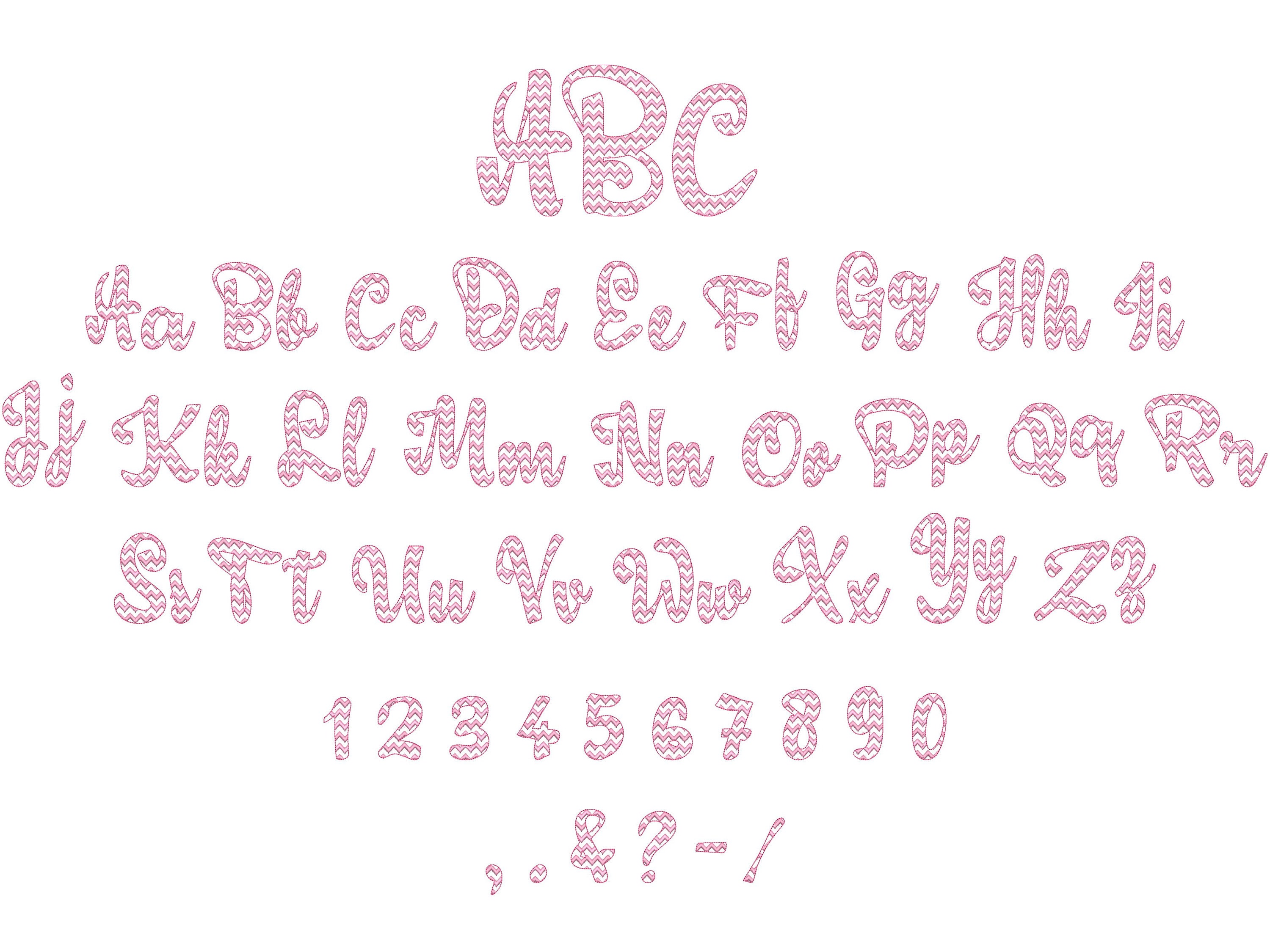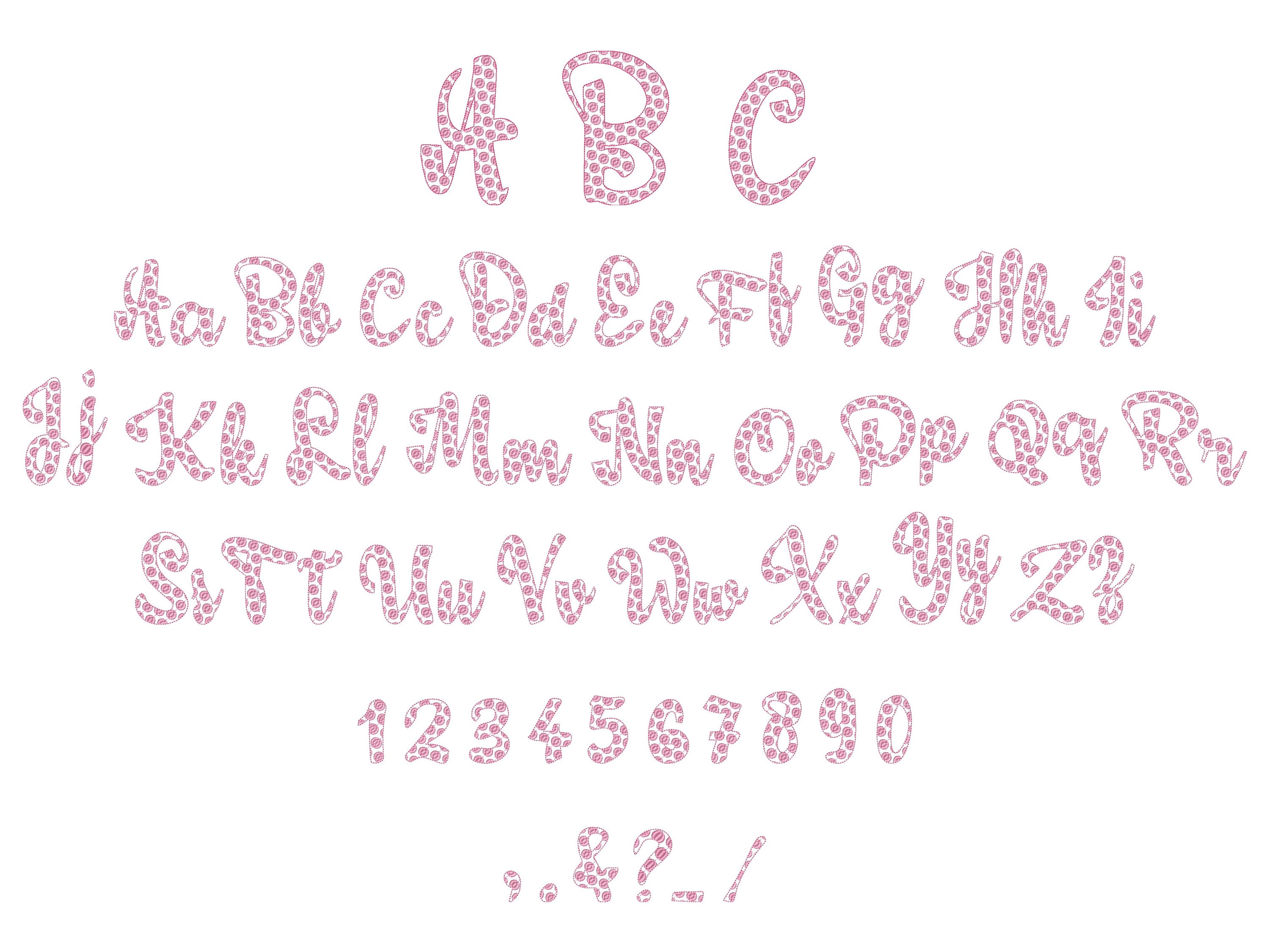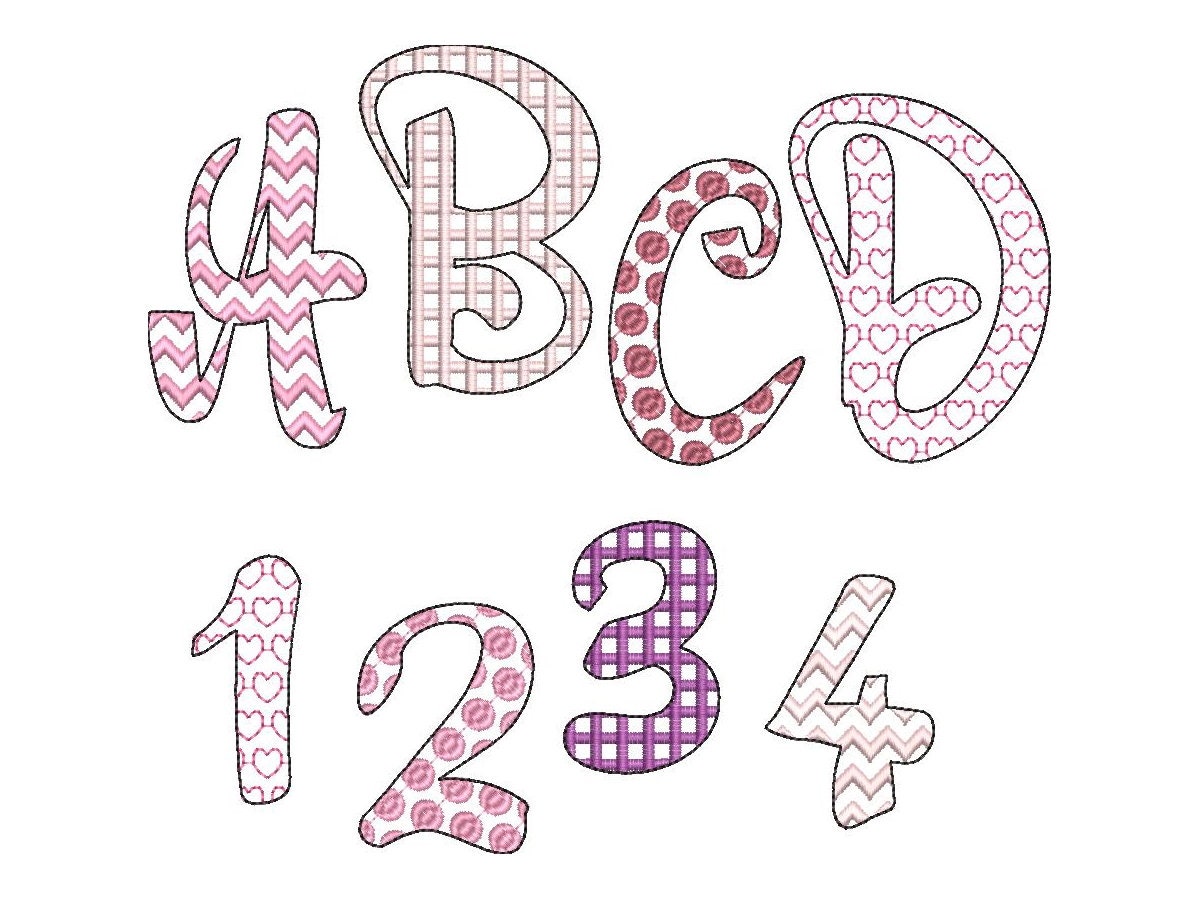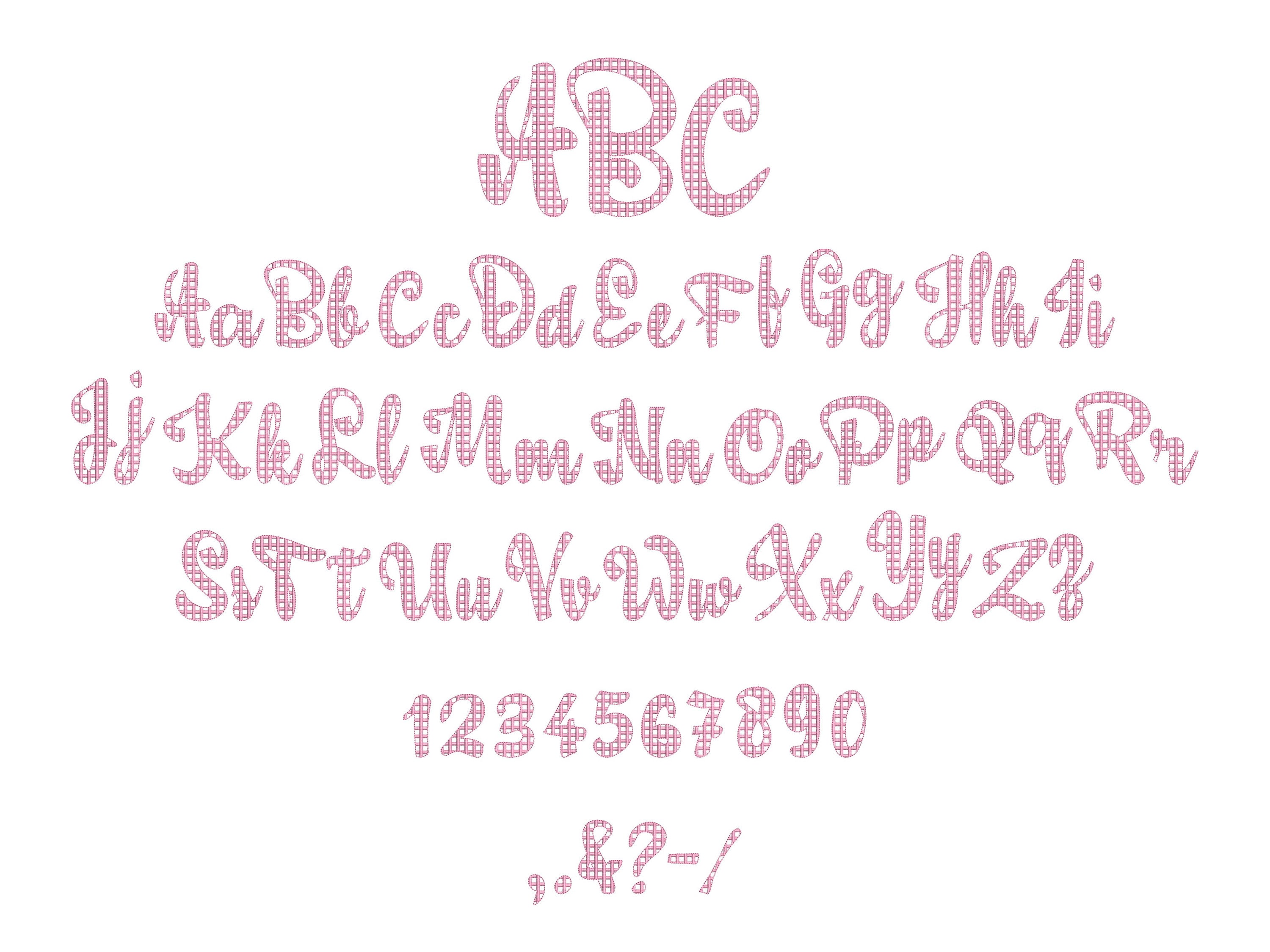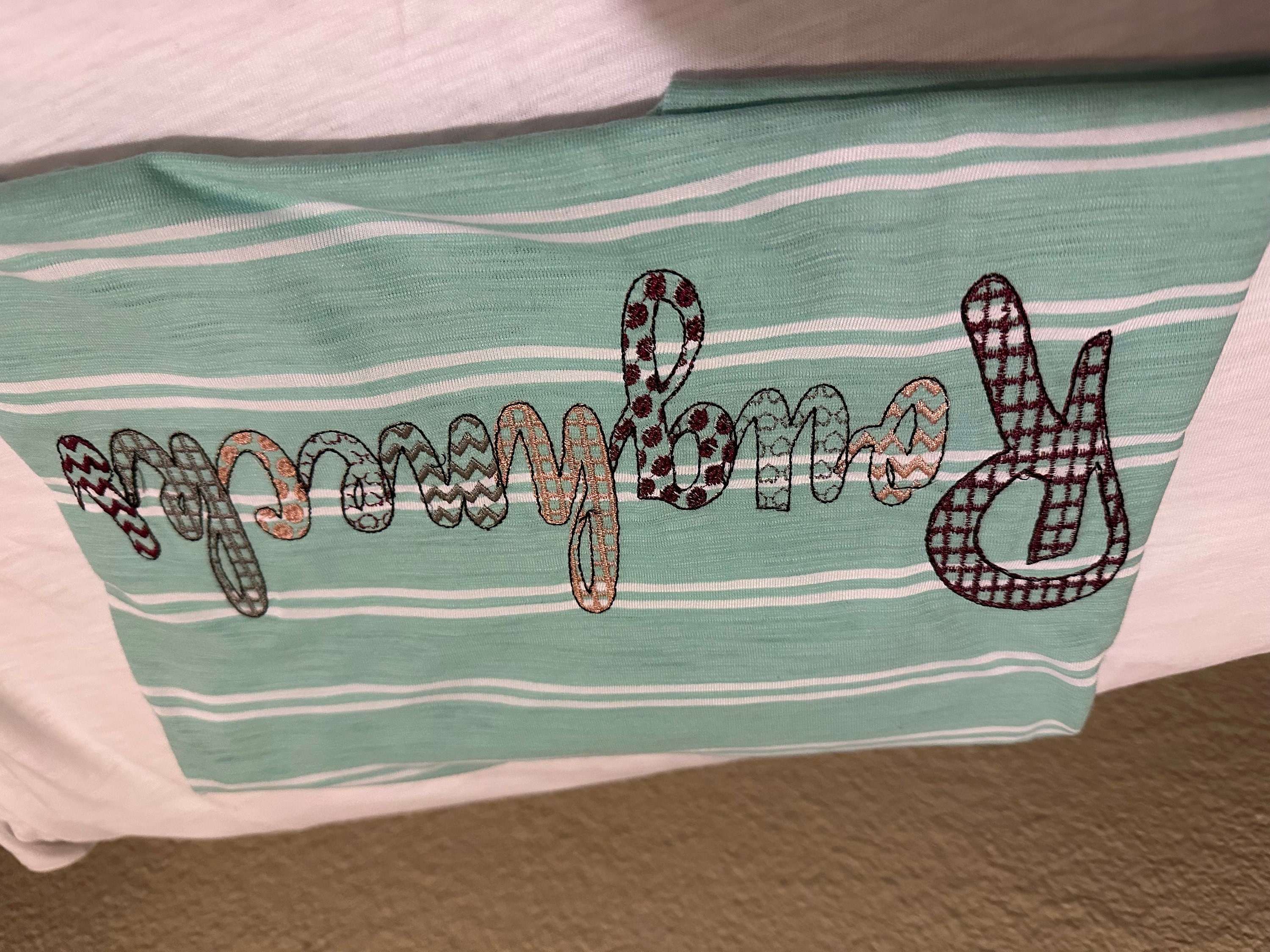
SET of 4 fonts Chevron ZigZag, Checkered, Polka Dot and Cute Heart FONT alphabet letters kids font machine embroidery designs assorted sizes
Included 4 fonts:
* Chevron ZigZag font
* Checkered Plaid font
* Cute Hearts font
* Polka Dot font
The fonts are transparent and have fill stitch or satin stitch pattern inside and a light bean stitch outline.
All fonts contain: uppercase and lowercase letters, numbers and punctuation & . , - ? / !
Merge and combine the letters and numbers as you wish. Change sizes and colors, just play and get awesome results!